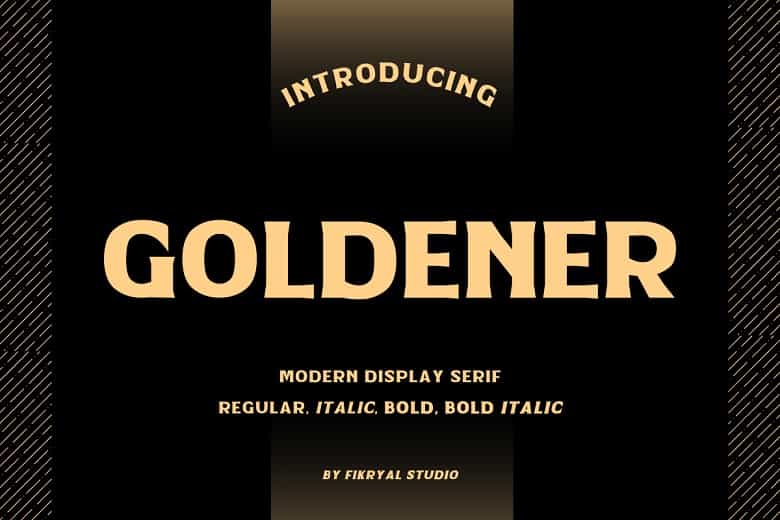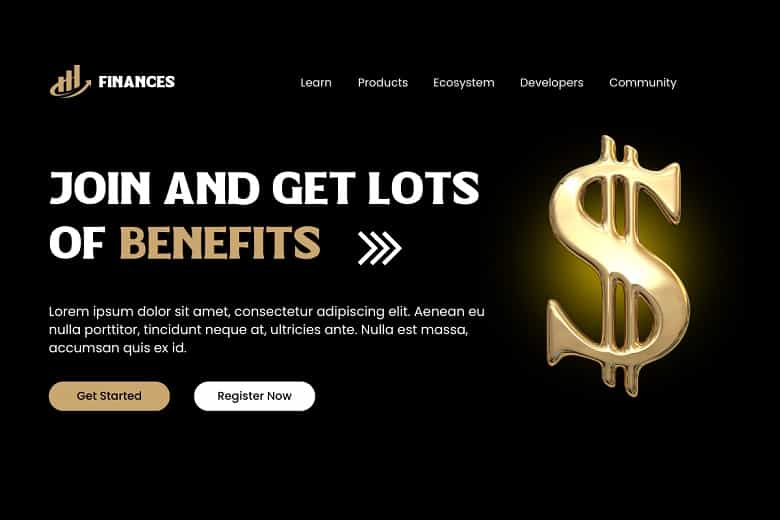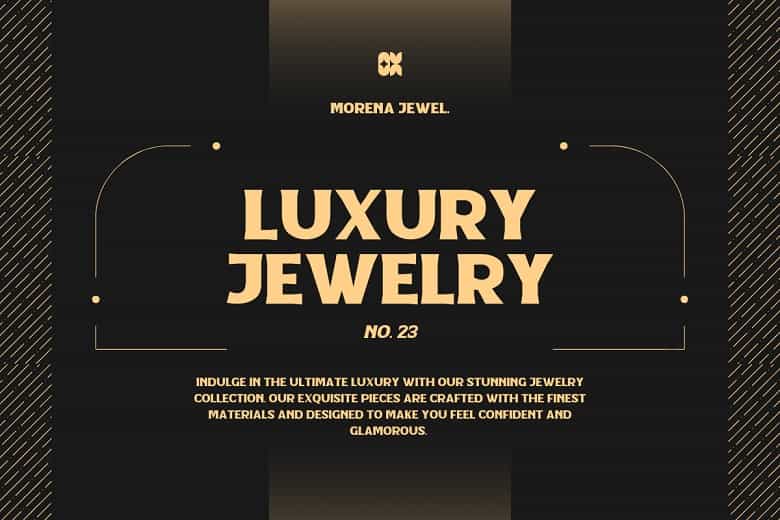
Goldener is a graceful and very universal serif font family that has 4 styles. Through the smooth curves and unique design, Goldener gives a nice impression in any project it will be applied. This versatile font family includes four stunning variations: you will get Regular, Italic, Bold, and Bold Italic styles that will help you to create an attractive headline, logos, and branding.